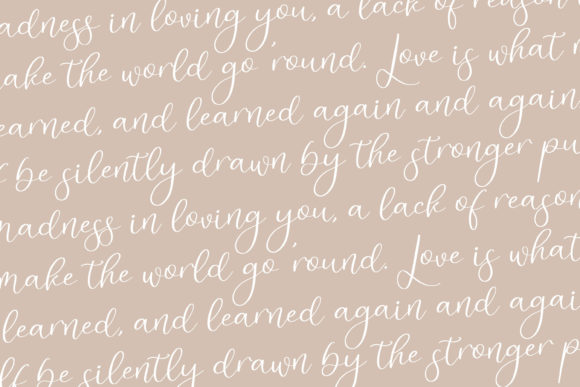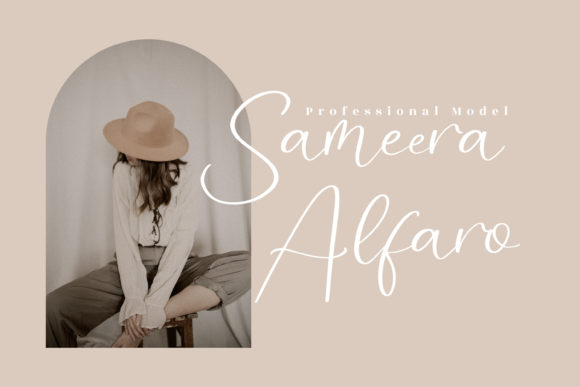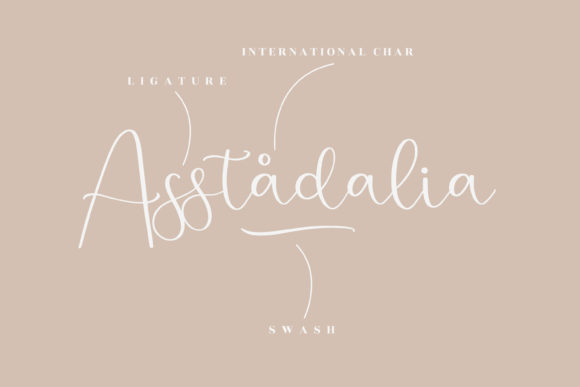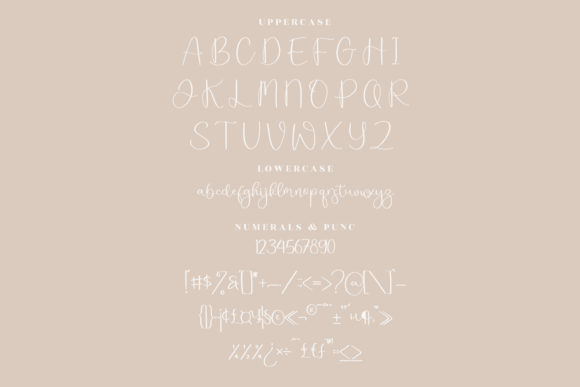
About Jelystta Font
Jelystta is an outstanding calligraphy typeface with characters that dance along the baseline. It will add a luxury spark to any design project that you wish to create! This font is PUA encoded which means you can access all of the amazing glyphs and ligatures with ease!